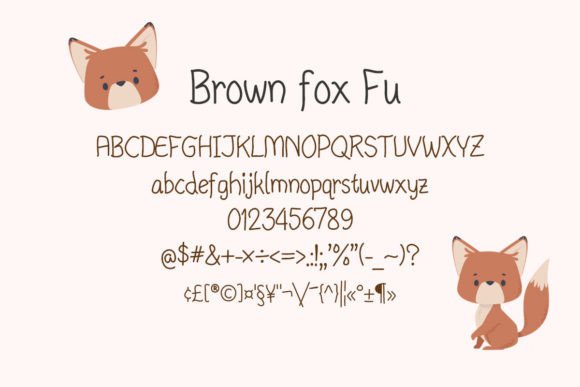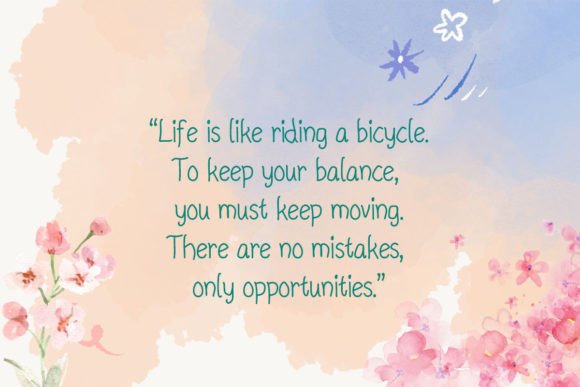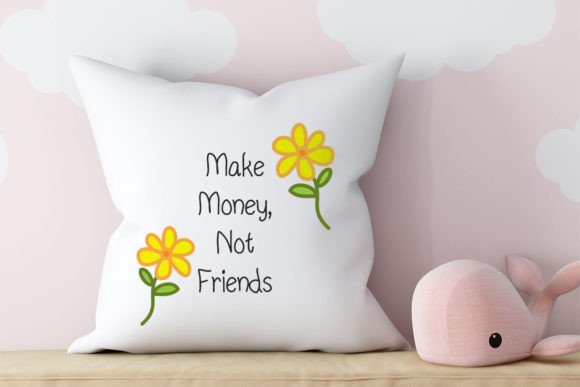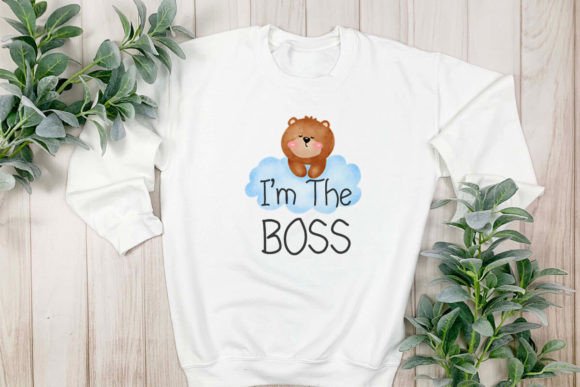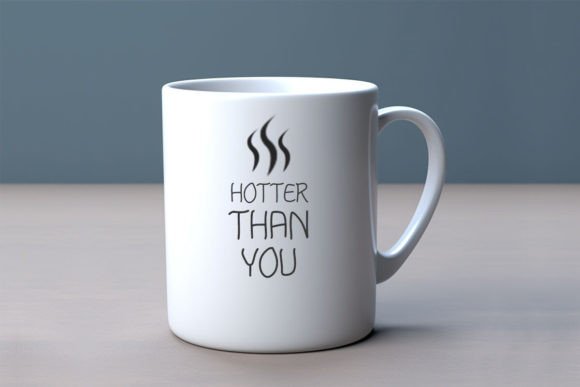
Brown Fox Fu Font: Adding a Touch of Whimsy to Your Designs
Are you tired of using the same old fonts in your designs? Look no further than the Brown Fox Fu Font, a fun, cheerful, and quirky sans serif font that’s perfect for adding a touch of personality to your projects. In this article, we’ll take a closer look at the Brown Fox Fu Font, its features, and how you can use it to elevate your designs.
What is Brown Fox Fu Font?
Brown Fox Fu Font is a unique and playful sans serif font that’s designed to bring a smile to your face. Its fun and quirky style makes it perfect for a wide range of projects, from fun and casual to more formal and sophisticated. Whether you’re a designer, crafter, or DIY enthusiast, this font is sure to inspire your creativity.
Features of Brown Fox Fu Font
So, what makes Brown Fox Fu Font so special? Here are just a few of its key features:
- Fun and quirky style: Brown Fox Fu Font has a playful and cheerful vibe that’s perfect for adding a touch of whimsy to your designs.
- Sans serif design: This font features a clean and modern sans serif design that’s easy to read and versatile.
- Highly versatile: Brown Fox Fu Font can be used for a wide range of projects, from wedding invitations and greeting cards to logos, posters, and social media posts.
Uses for Brown Fox Fu Font
So, what can you use Brown Fox Fu Font for? The possibilities are endless! Here are a few ideas to get you started:
- Fun projects: Add a touch of whimsy to your fun projects, such as party invitations, DIY crafts, and scrapbooking pages.
- Diary planners: Use Brown Fox Fu Font to add a playful touch to your diary planner or journal.
- Wedding invitations: This font is perfect for wedding invitations, thank you cards, and other wedding stationery.
- Logos and branding: Use Brown Fox Fu Font to create a fun and quirky logo or brand identity for your business.
- Social media posts: Add a touch of personality to your social media posts with this fun and engaging font.
- Blogs and websites: Use Brown Fox Fu Font to add a playful touch to your blog or website.
- Clothing and accessories: This font is perfect for designing custom clothing, bags, and accessories, such as T-shirts, tote bags, and stickers.
Why Designers and Crafters Love Brown Fox Fu Font
So, why do designers and crafters love Brown Fox Fu Font? Here are just a few reasons:
- Easy to read: Despite its playful style, Brown Fox Fu Font is easy to read and understand, making it perfect for body text and headlines.
- Highly versatile: This font can be used for a wide range of projects, from formal to informal, making it a great addition to any designer’s toolkit.
- Unique and eye-catching: Brown Fox Fu Font is a unique and eye-catching font that’s sure to grab attention and add a touch of personality to your designs.
| Font Name | Brown Fox Fu Font |
| Author | TanoiCartoonist |
In conclusion, Brown Fox Fu Font is a fun, cheerful, and quirky sans serif font that’s perfect for adding a touch of whimsy to your designs. With its highly versatile style, ease of use, and unique personality, this font is sure to become a favorite among designers and crafters. Whether you’re working on a fun project, designing a logo, or creating social media posts, Brown Fox Fu Font is the perfect choice. So why not give it a try and see how it can elevate your designs?